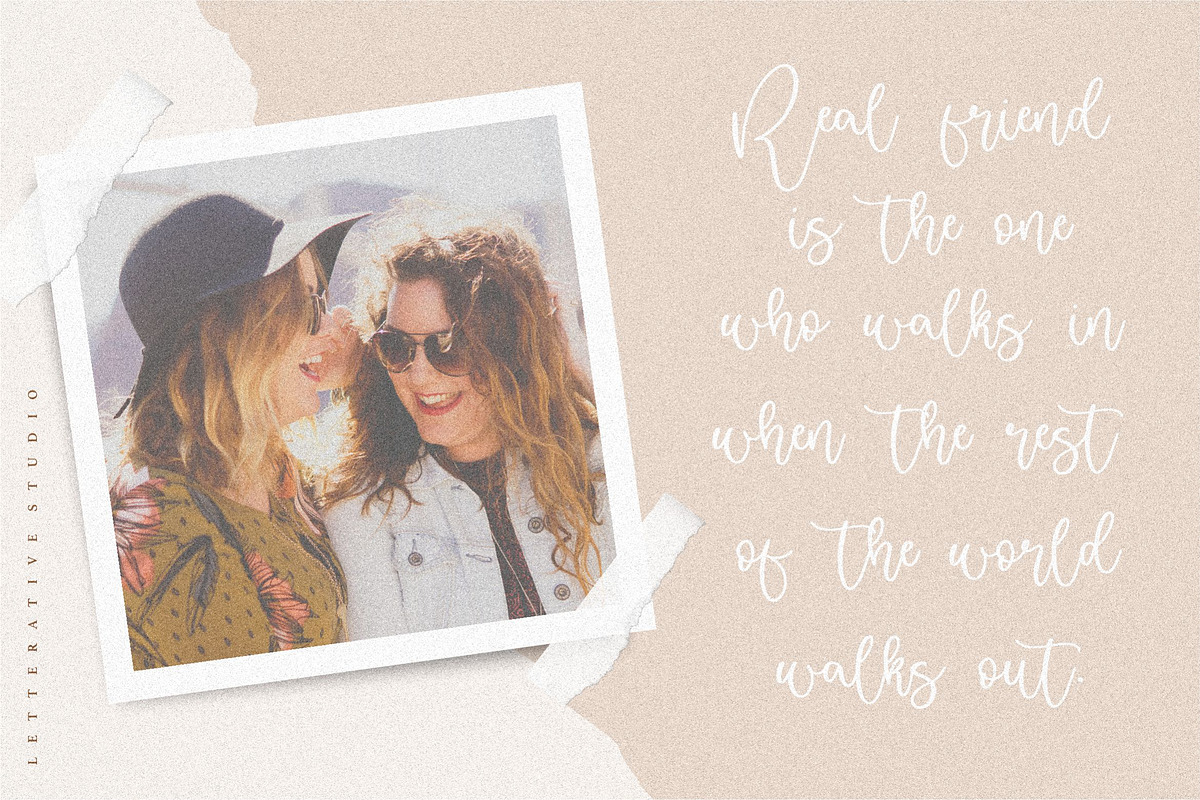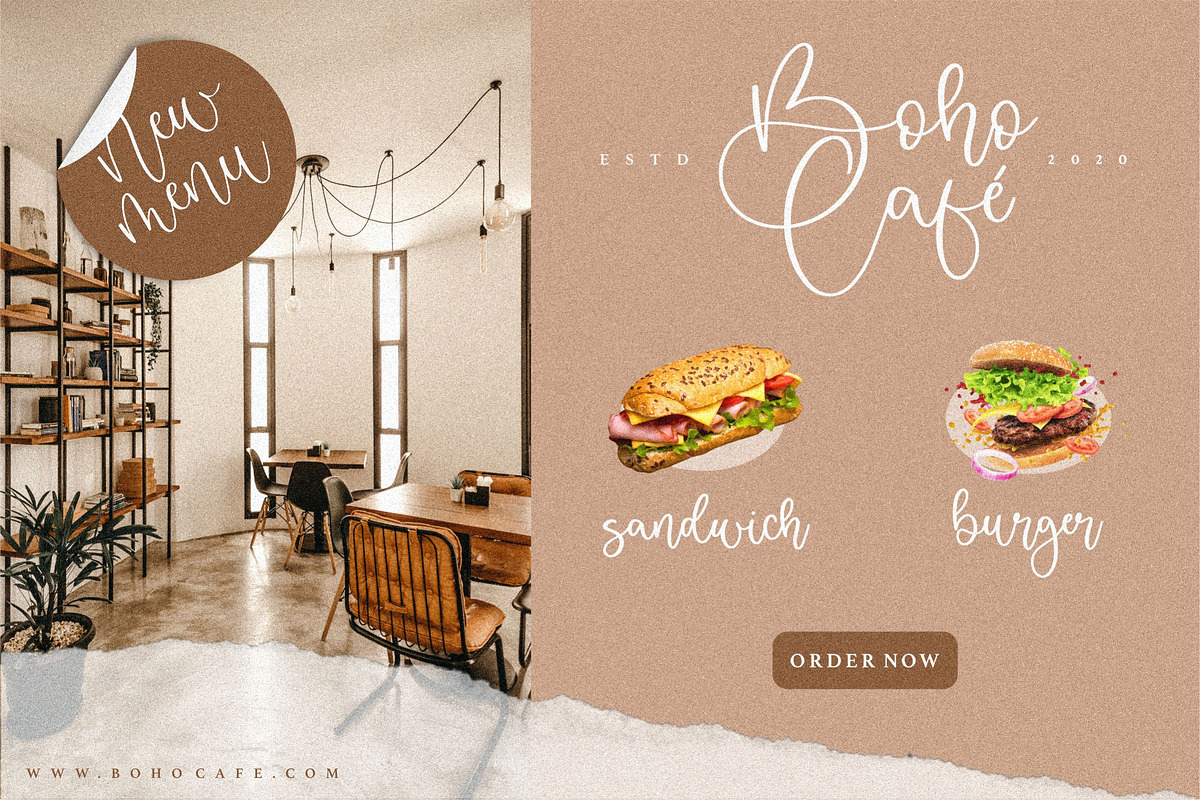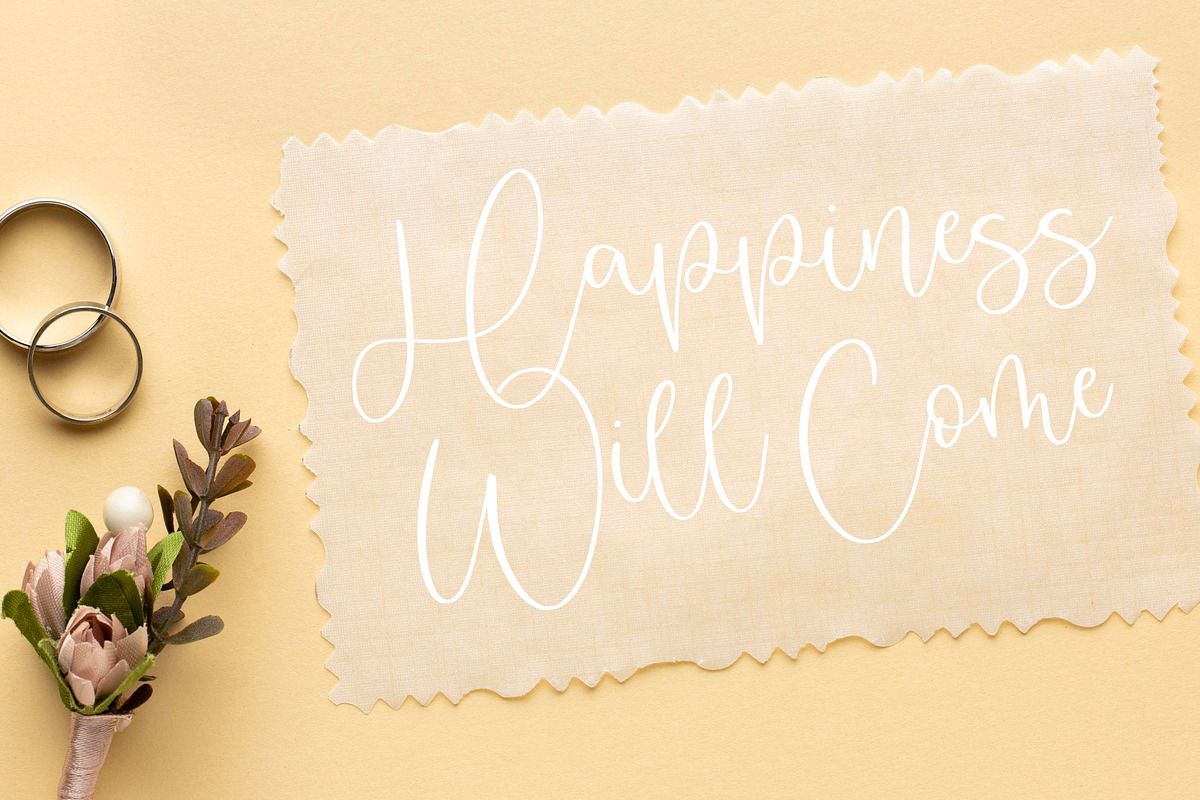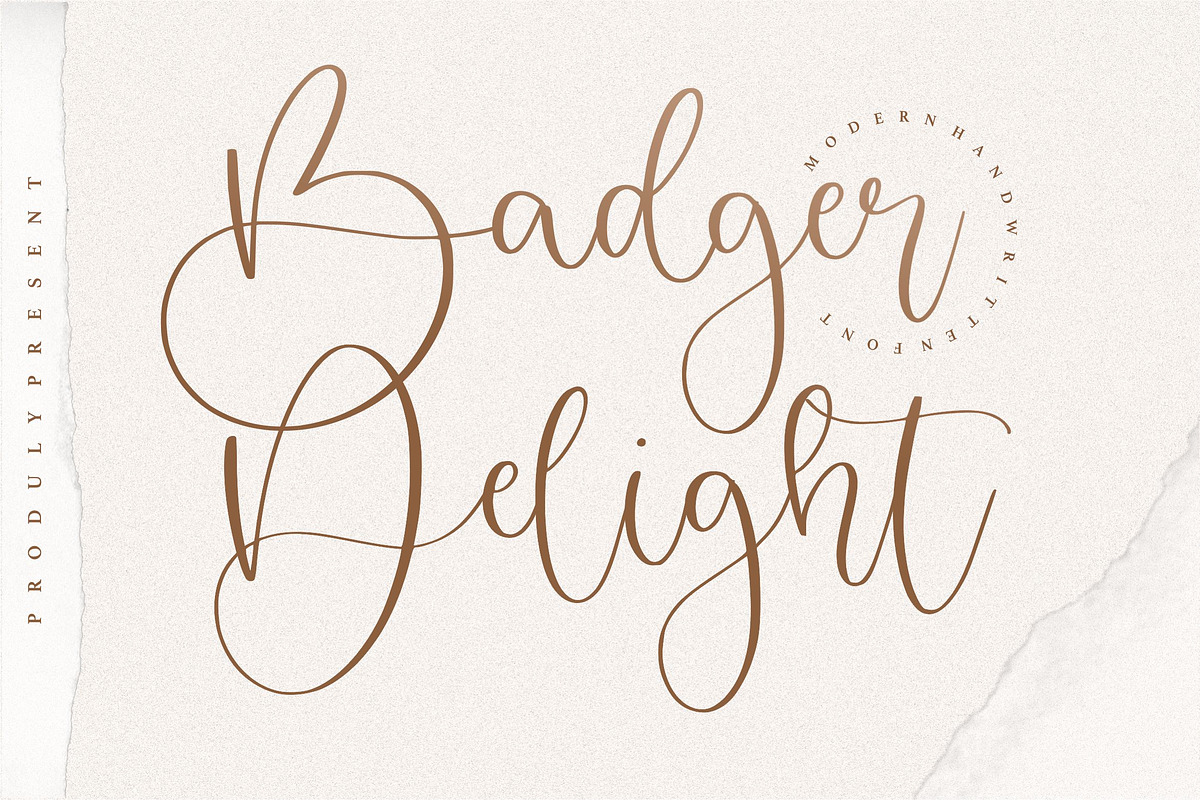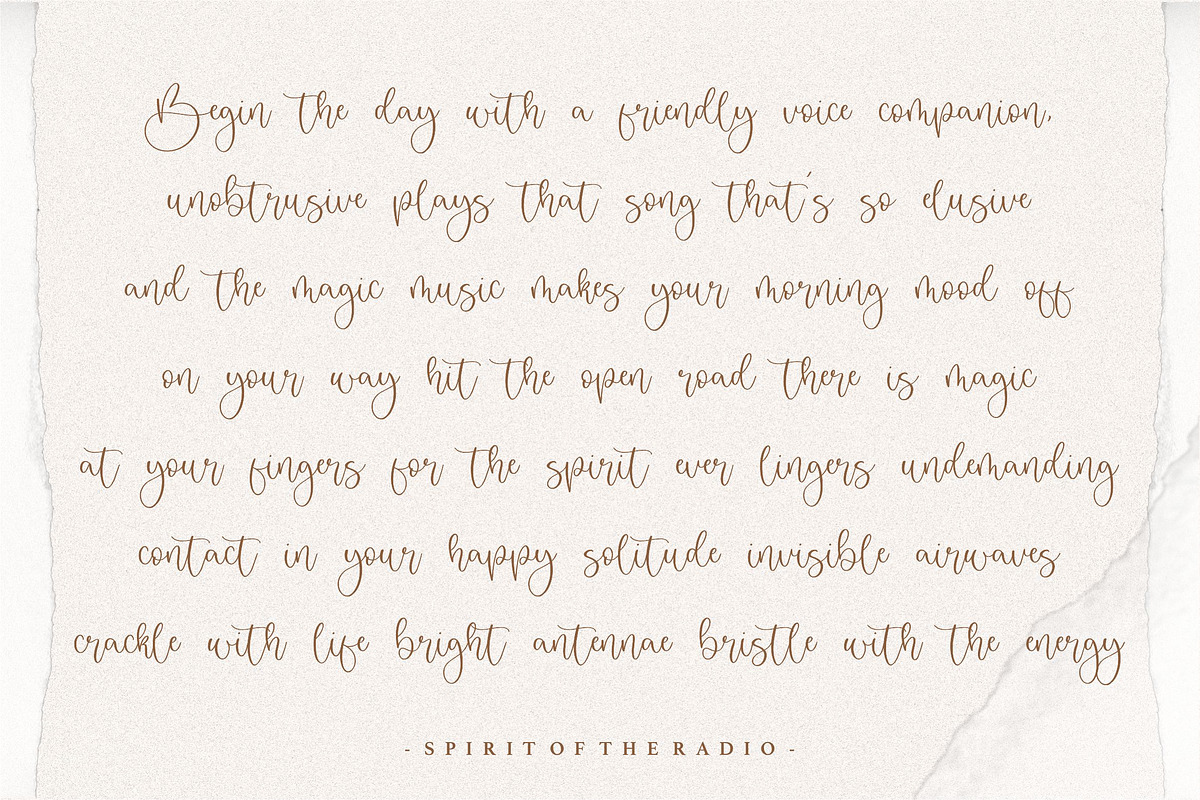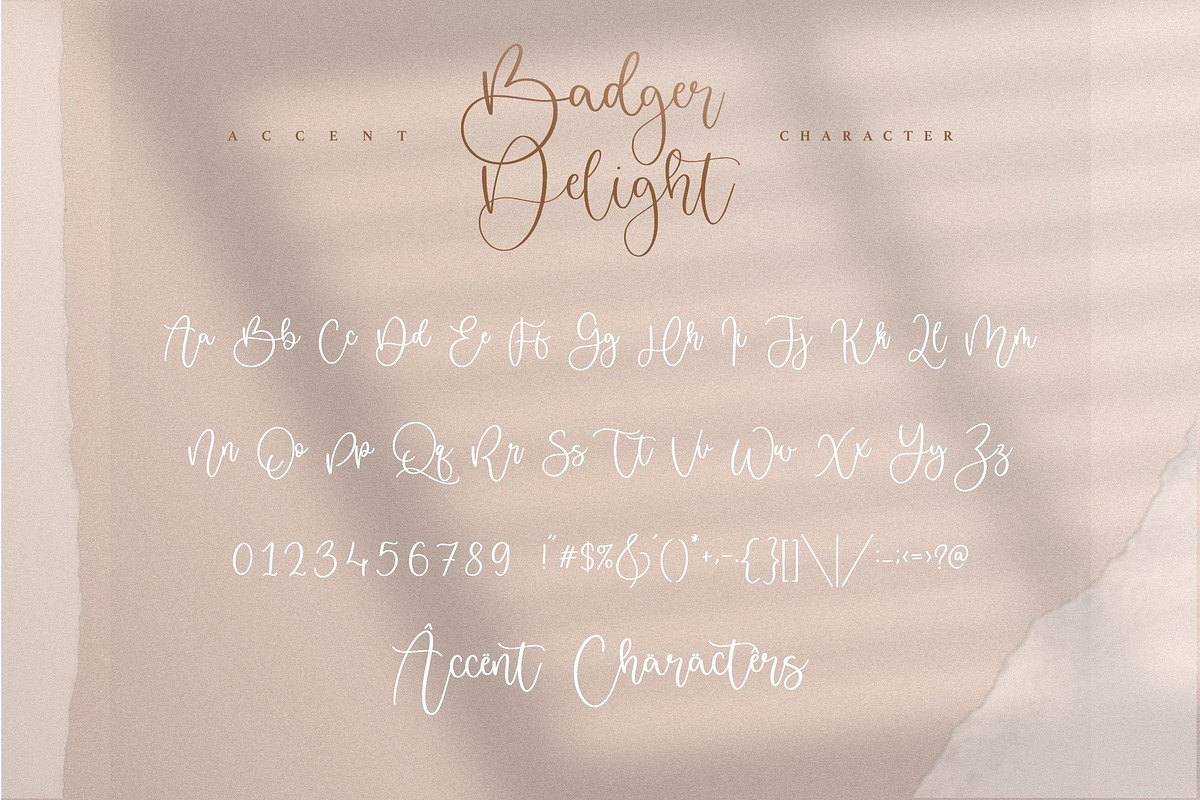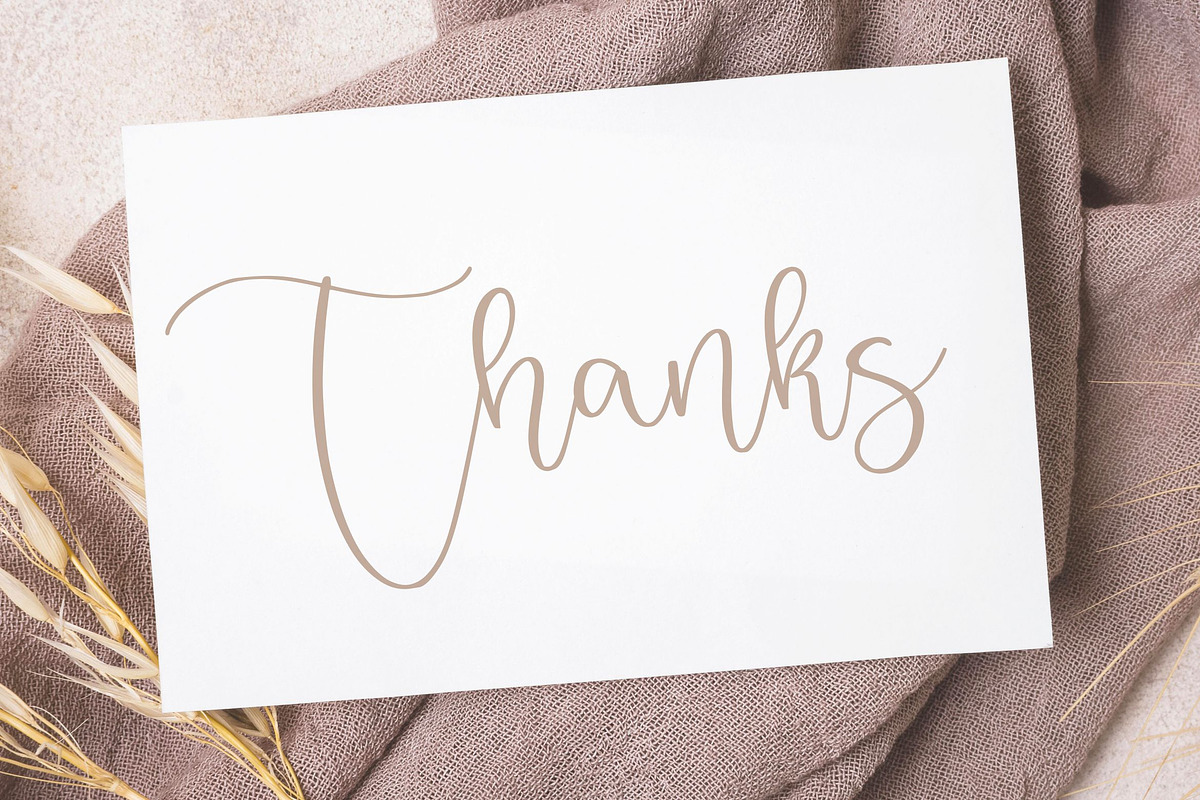
Badger Delight - Modern Handwritten
Badger Delight is a Modern Monoline Script Font.
Badger Delight is a gorgeous, round lettered handwritten font. It looks stunning on wedding invitations, thank you cards, quotes, greeting cards, logos, business cards and every other design which needs a handwritten touch.